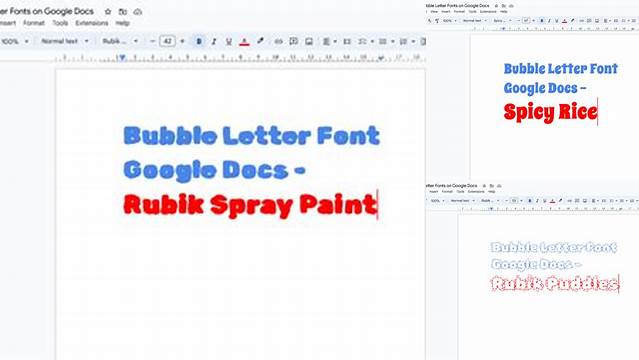
Fun Fonts: How To Use Bubbly Fonts In Google Docs
Hey guys! Ever feel like your Google Docs could use a little more personality? You know, a bit of that fun, playful vibe? Well, one of the easiest ways to inject some character into your documents is by using bubbly fonts. These fonts can instantly transform a document from serious and formal to lighthearted and engaging. But where do you even start? What fonts are considered "bubbly," and how do you get them into Google Docs? Don't worry; we've got you covered! In this comprehensive guide, we'll explore the world of bubbly fonts on Google Docs, showing you how to find them, use them, and even add your own. So, let's dive in and add some fun to your documents!
What Are Bubbly Fonts?
First things first, let's define what we mean by bubbly fonts. These fonts are typically characterized by their rounded edges, soft curves, and overall playful appearance. Think of the fonts you might see on a children's book cover or a party invitation. They often evoke a sense of whimsy, joy, and informality. Bubbly fonts can be a fantastic choice for a variety of projects, including presentations, posters, social media graphics, and even certain types of reports where a more relaxed tone is appropriate. But it’s also important to consider your audience and the overall message you want to convey. A bubbly font might not be the best choice for a formal legal document, for example. The key is to use them strategically and in situations where their lighthearted nature will enhance your message, not detract from it.
When you're looking for bubbly fonts, you'll come across a wide range of styles. Some are more cartoonish and playful, while others have a slightly more sophisticated but still friendly feel. Some have thick, bold lines that make a statement, while others are lighter and more delicate. It really depends on the specific project and the vibe you're going for. For instance, if you're creating a poster for a kids' birthday party, you might opt for a very bold and cartoon-like font. On the other hand, if you're designing a presentation for a creative team, you might choose a bubbly font that's a bit more polished and modern. The versatility of these fonts is part of what makes them so appealing. You can use them to add a touch of fun to almost any project, as long as you choose the right one for the context. So, experiment with different styles and see what works best for you!
Consider the psychology of fonts when selecting your bubbly typeface. Different styles evoke different emotions, so aligning your font choice with your intended message is crucial. A rounded, sans-serif bubbly font might convey friendliness and approachability, perfect for a community event flyer. A thicker, more playful font with exaggerated curves might be ideal for a children's book or a cartoon. Think about the overall mood you want to create and choose a font that complements it. It's also a good idea to consider the legibility of the font. While bubbly fonts are fun, they should still be easy to read, especially in longer blocks of text. Avoid fonts with overly intricate details or extreme stylization that can make the text difficult to decipher. You want your message to be clear and accessible, so readability should always be a top priority. And remember, less is often more. Don't overuse bubbly fonts in a single document, as this can become overwhelming and detract from your message. Use them strategically to highlight key points or add a touch of personality, but balance them with more neutral fonts for the main body of your text.
Finding Bubbly Fonts in Google Docs
As you browse, keep in mind the specific needs of your project. Consider the font's legibility, its overall style, and how well it complements the other elements of your document. A bubbly font might be perfect for a title or heading, but it might not be the best choice for long paragraphs of text. In those cases, you might want to pair your bubbly font with a more readable font for the body text. This will help you create a visually appealing document that's also easy to read. Once you find a font you like, simply click on it to add it to your “My fonts” list. This will make it easily accessible in the font dropdown menu in your Google Doc. You can add as many fonts as you like, so feel free to build up a collection of your favorite bubbly options! And don't worry, if you ever want to remove a font from your list, you can simply click on it again in the “More fonts” menu. So go ahead, explore the world of Google Docs fonts and discover the perfect bubbly typeface for your next project!
Adding Custom Bubbly Fonts to Google Docs
Okay, so you've explored the built-in fonts in Google Docs, but maybe you're still craving something a little more unique. No problem! One of the coolest things about Google Docs is that you can add your own custom fonts. This opens up a whole new universe of bubbly font possibilities. There are tons of websites out there that offer free or premium fonts, and many of them have some fantastic bubbly options. But how do you actually get those fonts into Google Docs? It's a bit of a process, but don't worry, we'll walk you through it step by step.
The first thing you'll need is a Google Workspace account (formerly G Suite). This is the paid version of Google's productivity suite, and it's required to upload custom fonts. If you're using a personal Google account, you'll need to upgrade to a Google Workspace plan. Once you have a Google Workspace account, the process is relatively straightforward. First, find a bubbly font you love on a font website like Google Fonts, DaFont, or Font Squirrel. Make sure the font is compatible with web use (most fonts are these days). Download the font file – it will usually be in a .ttf or .otf format. Next, you'll need to upload the font to your Google Drive. Create a new folder in your Drive specifically for your fonts to keep things organized. Then, simply drag and drop the font file into the folder. Now comes the slightly trickier part: connecting the font to Google Docs.
To do this, you'll need to use Google's Cloud Platform. Don't panic – it sounds intimidating, but it's not too bad! You'll need to create a new project in Google Cloud Platform and enable the Cloud Functions API. This allows you to run small pieces of code in the cloud. Then, you'll need to write a small script that uploads the font from your Google Drive to Google Fonts. There are plenty of tutorials online that can walk you through this process step by step, so don't feel like you need to be a coding expert. Once the script is set up, you can run it to upload your font. It might take a few minutes for the font to process and become available in Google Docs. Finally, go back to your Google Doc and click on the font dropdown menu. You should see your new bubbly font listed in the “My fonts” section. Voila! You've successfully added a custom font to Google Docs. It might seem like a lot of steps, but once you've done it once, it becomes much easier. And the payoff is huge – you'll have access to a virtually unlimited library of bubbly fonts to make your documents truly stand out. So go forth and customize!
Don't be afraid to experiment with different bubbly fonts and see what works best for you. Google Docs offers a wide range of options, both built-in and custom, so there's sure to be a perfect bubbly font out there for every project. And by following the tips we've shared, you can use these fonts effectively without sacrificing readability or professionalism. So go ahead, unleash your inner font enthusiast and add a touch of bubbly fun to your Google Docs! We can't wait to see what you create!